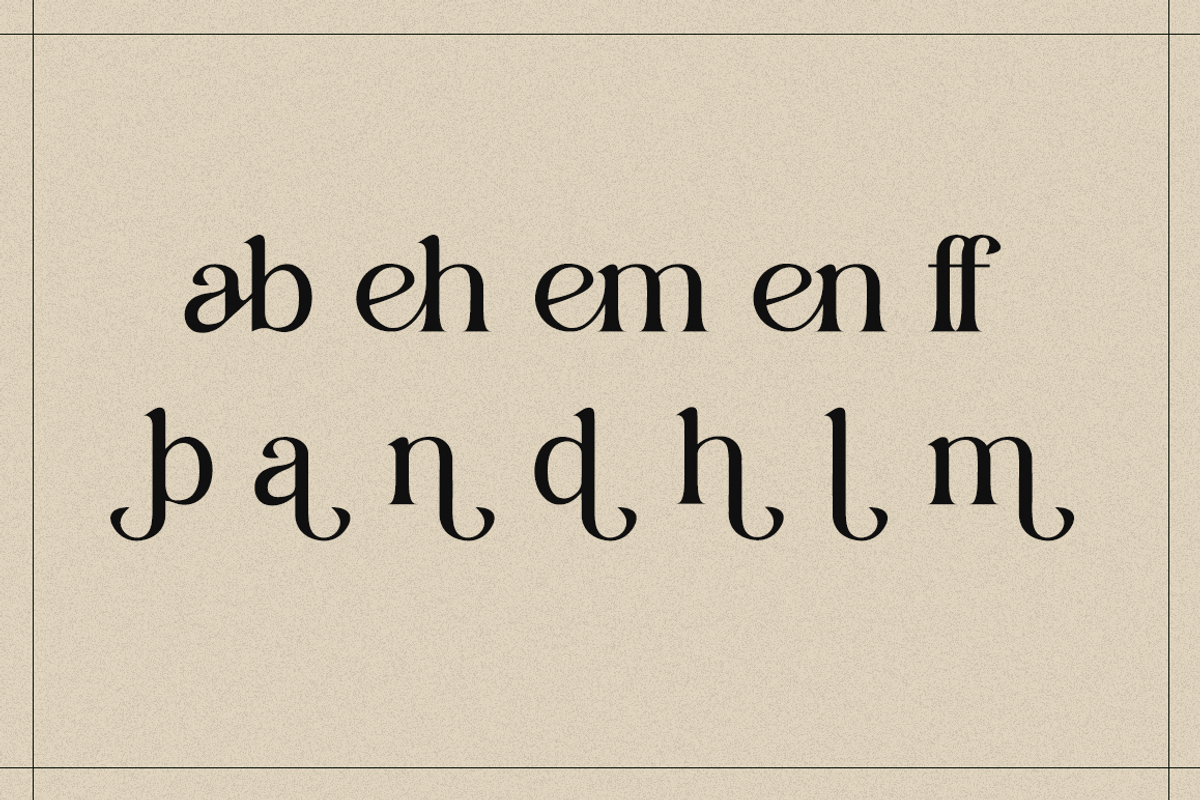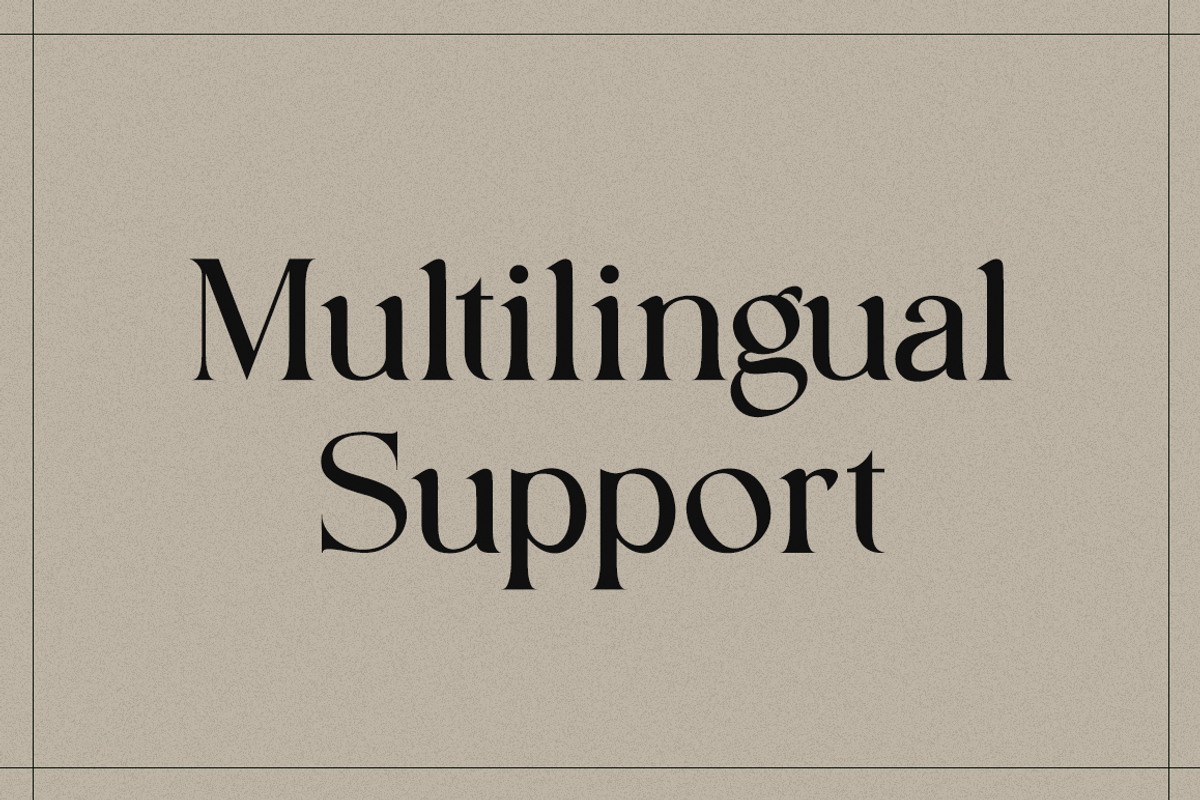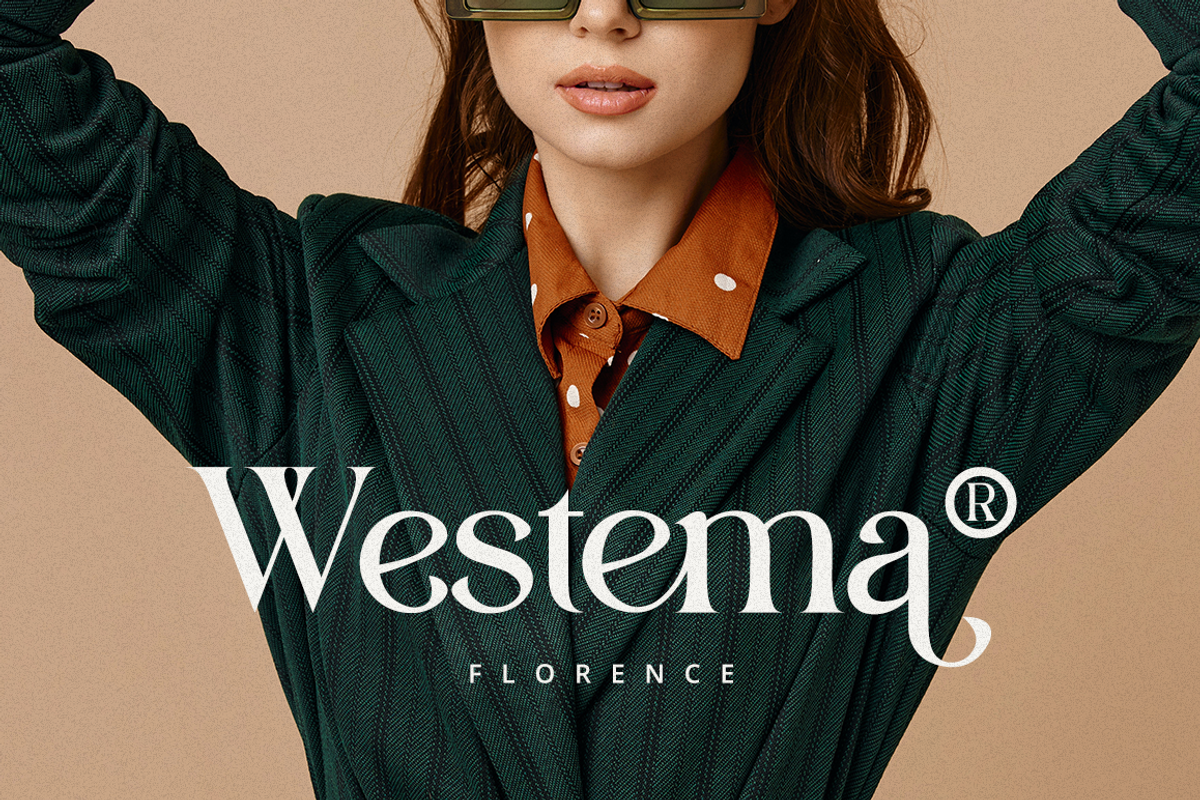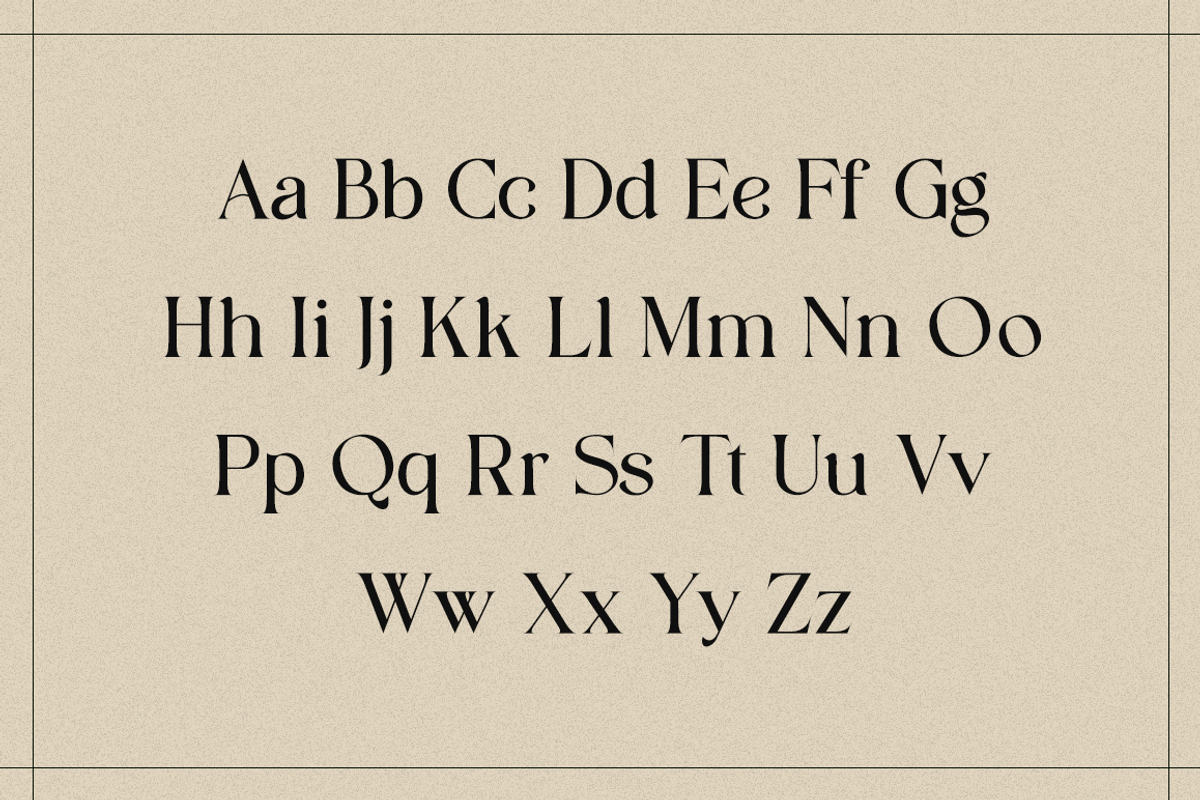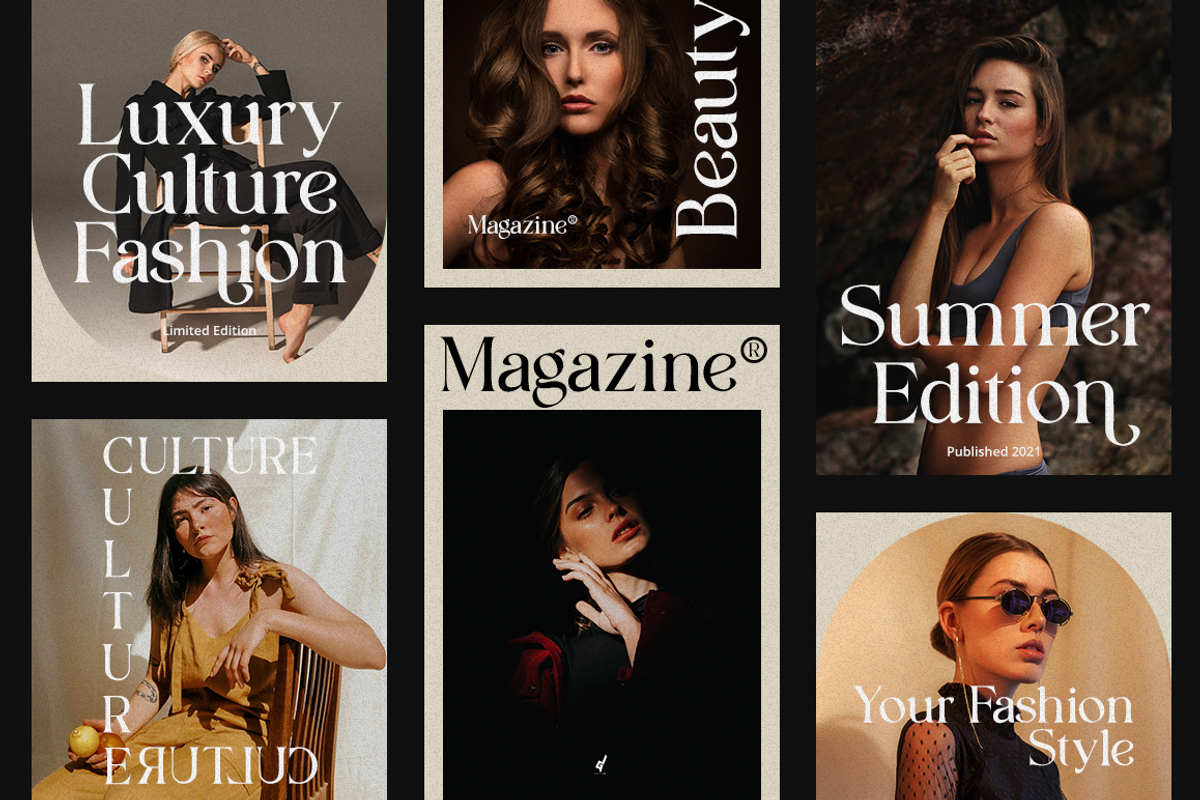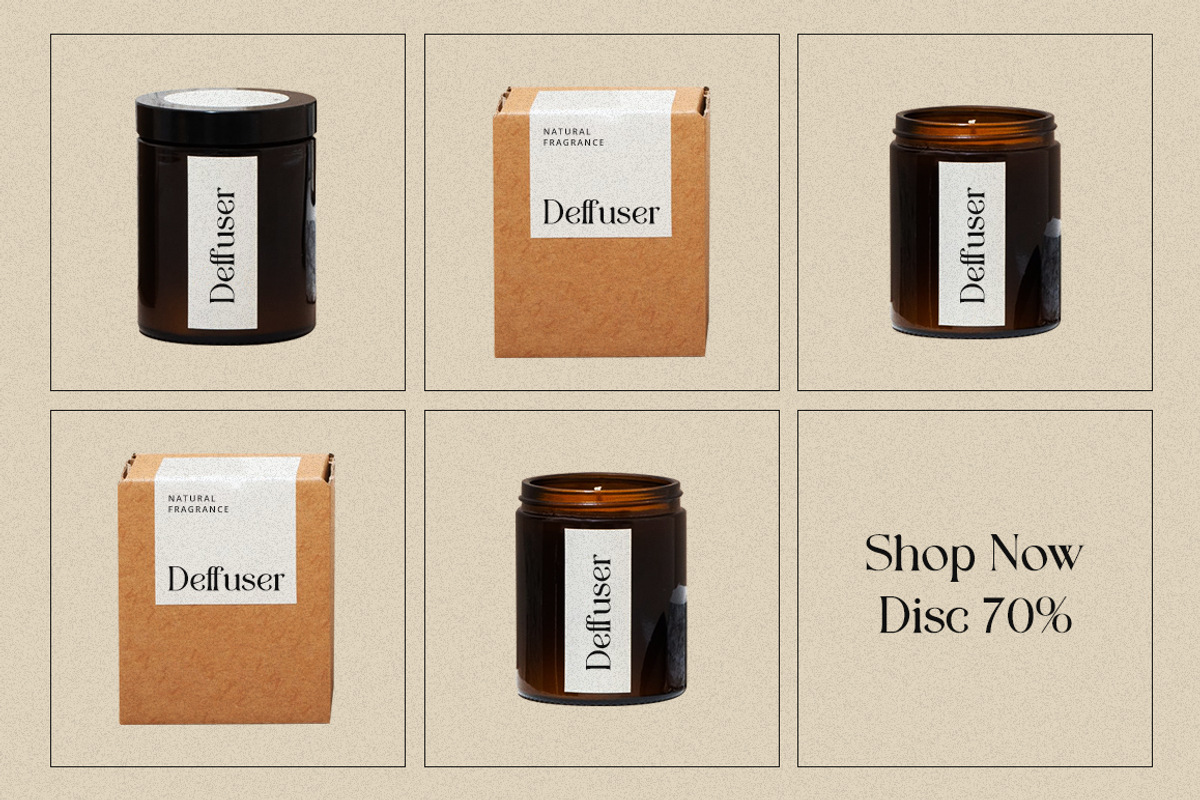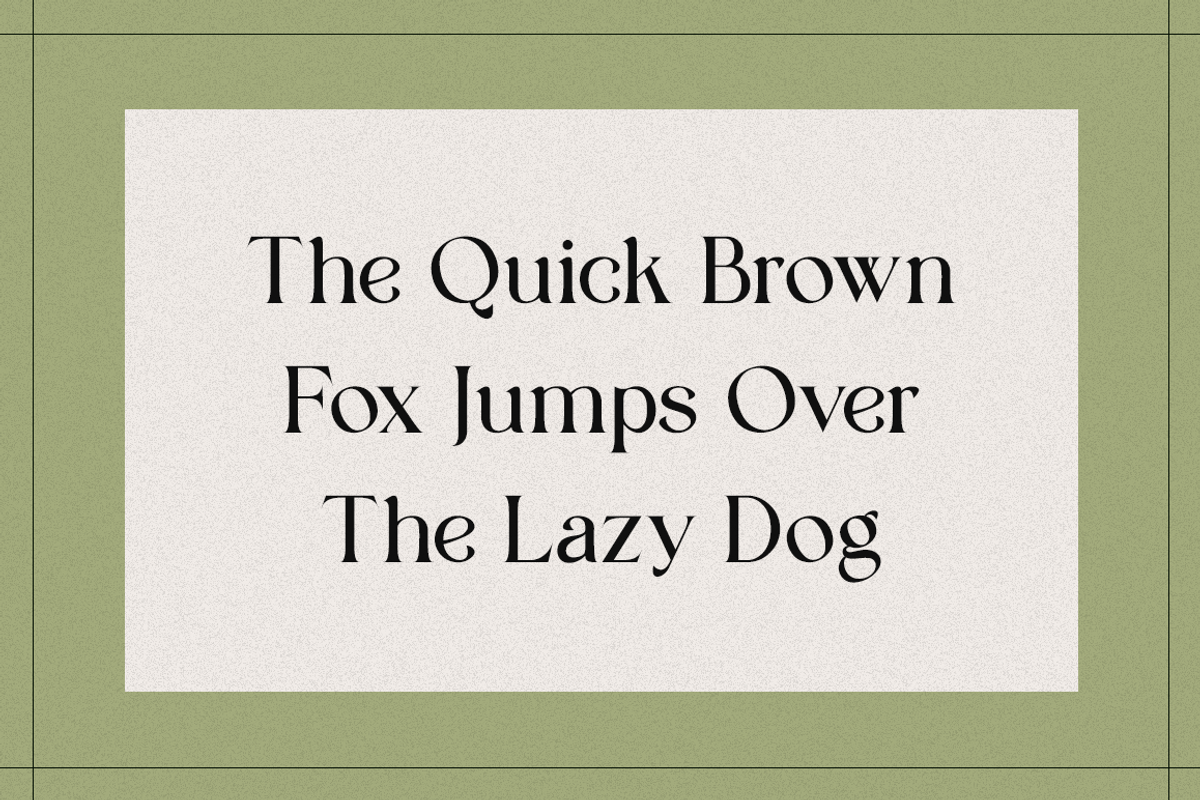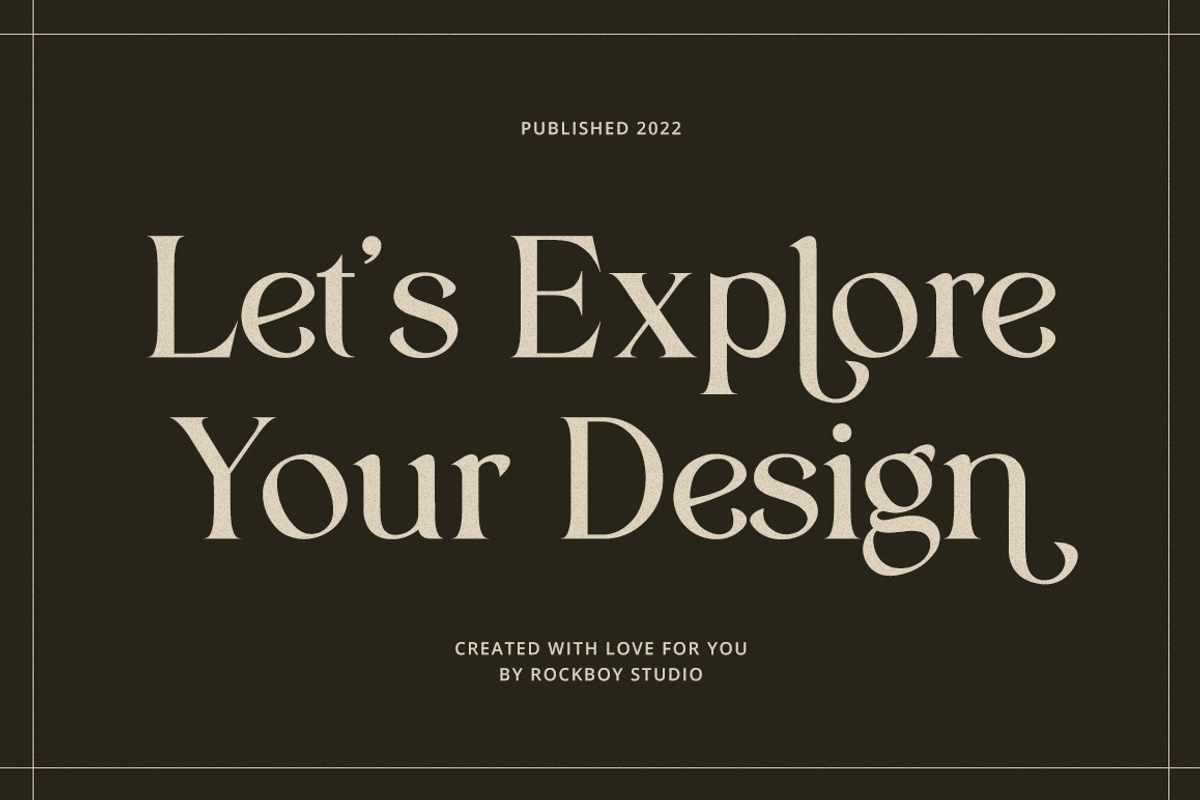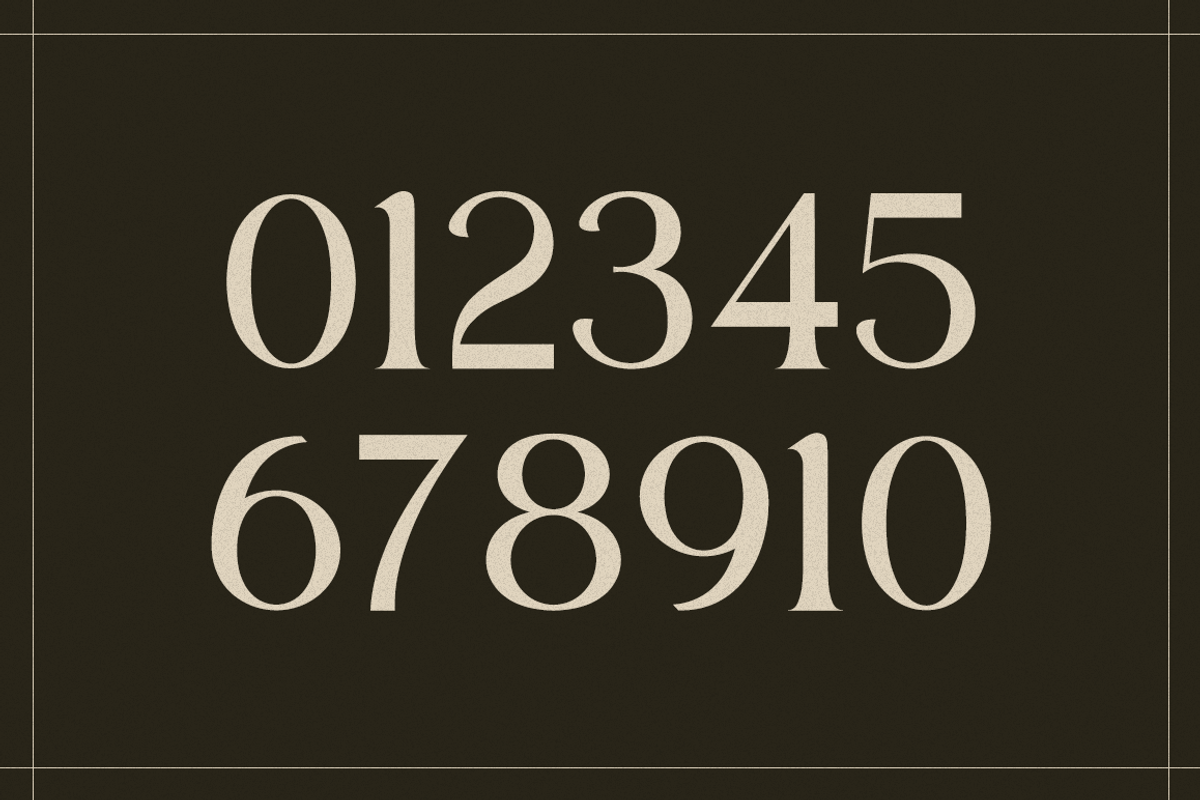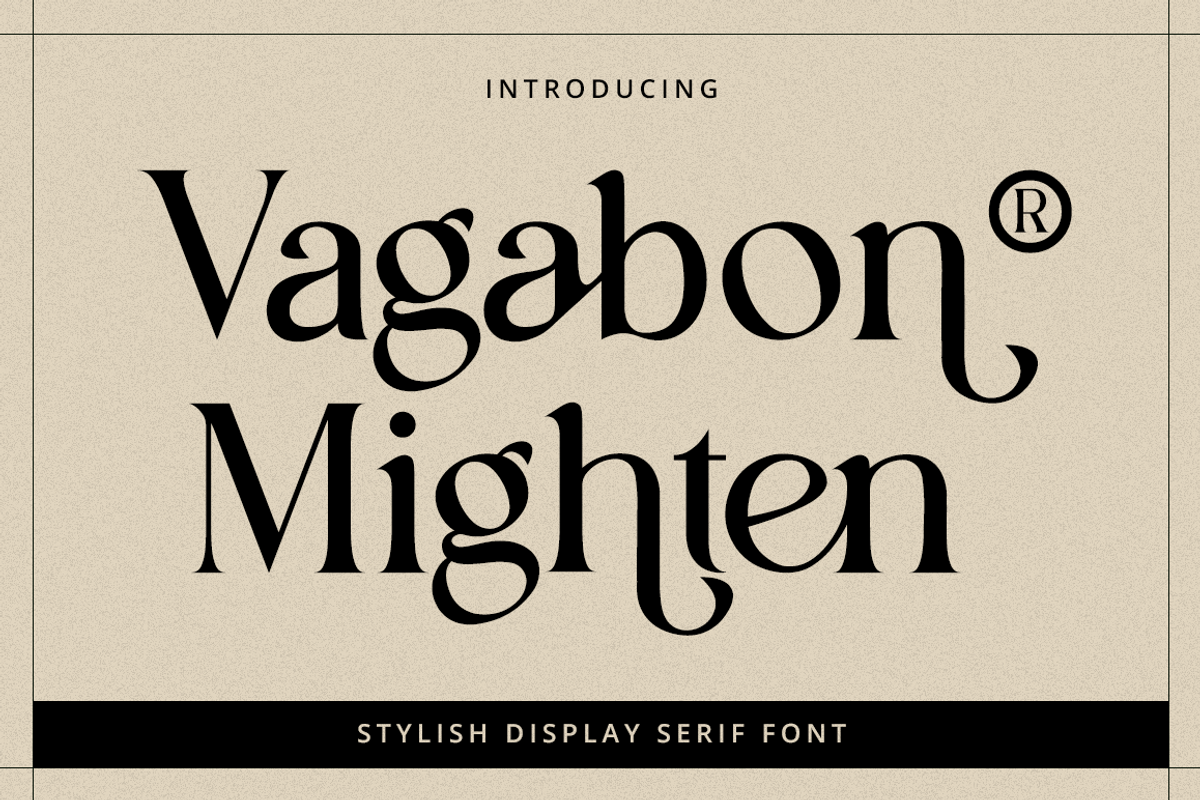
Vagabon Mighten- Display Serif Font
Vagabon Mighten is an elegant, thin lettered and distinct serif font. Suitable to a wide variety of designs due to its neat and clean style, this font has the potential to become your favorite go-to font, no matter the occasion!